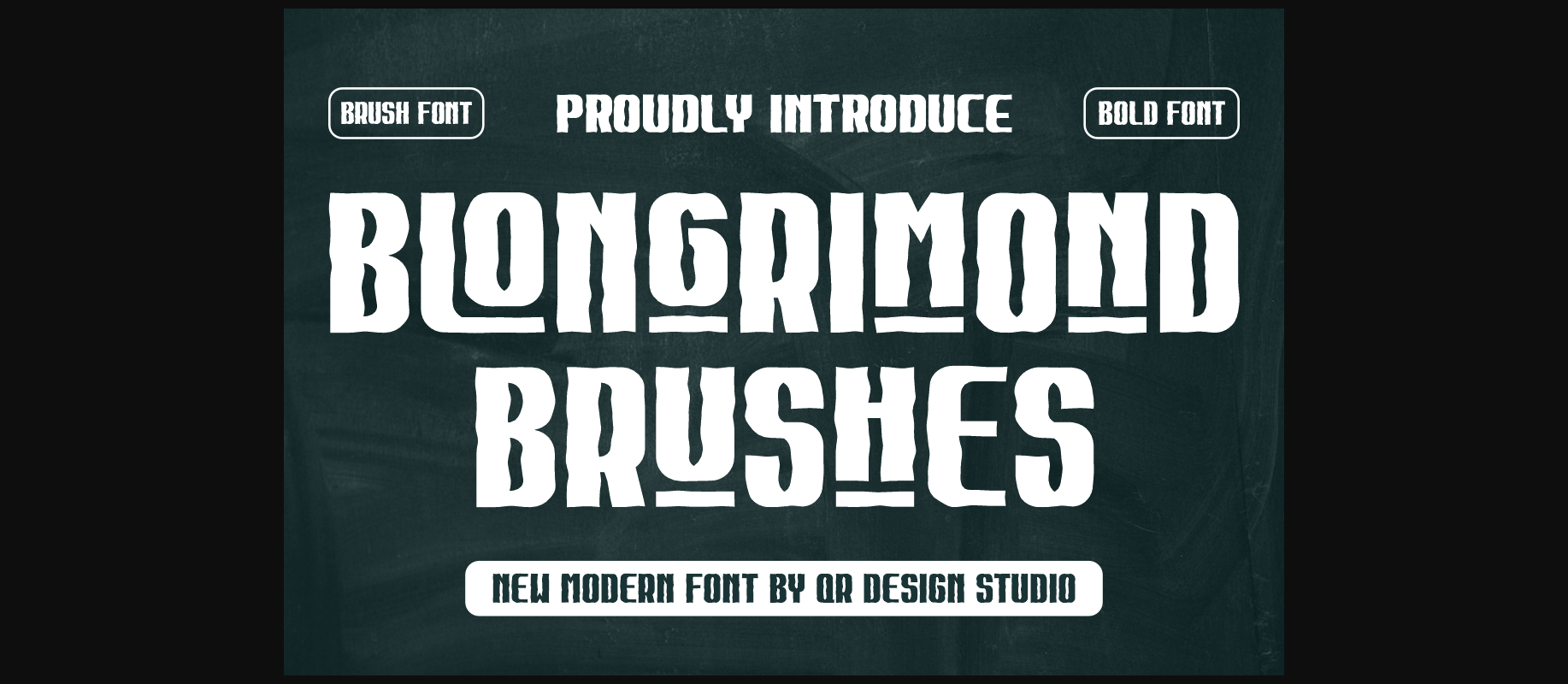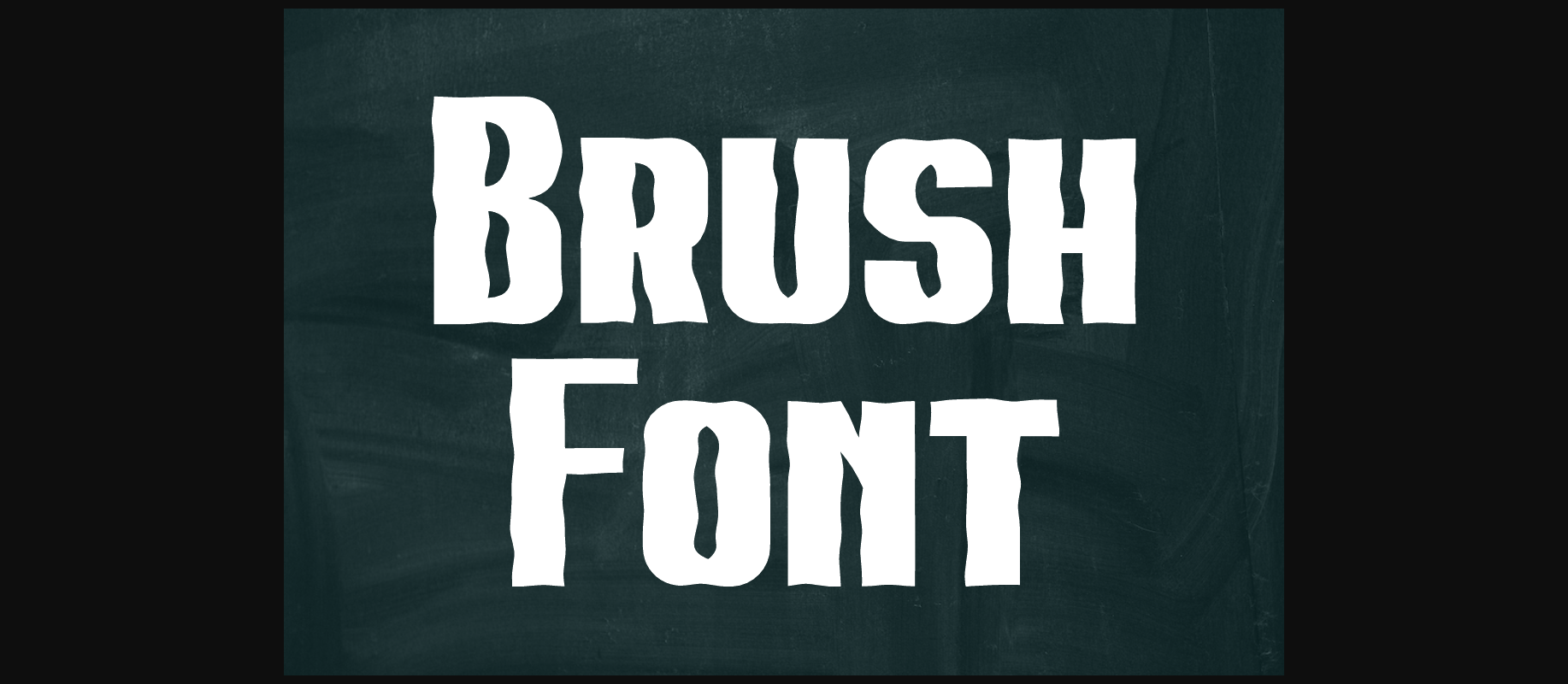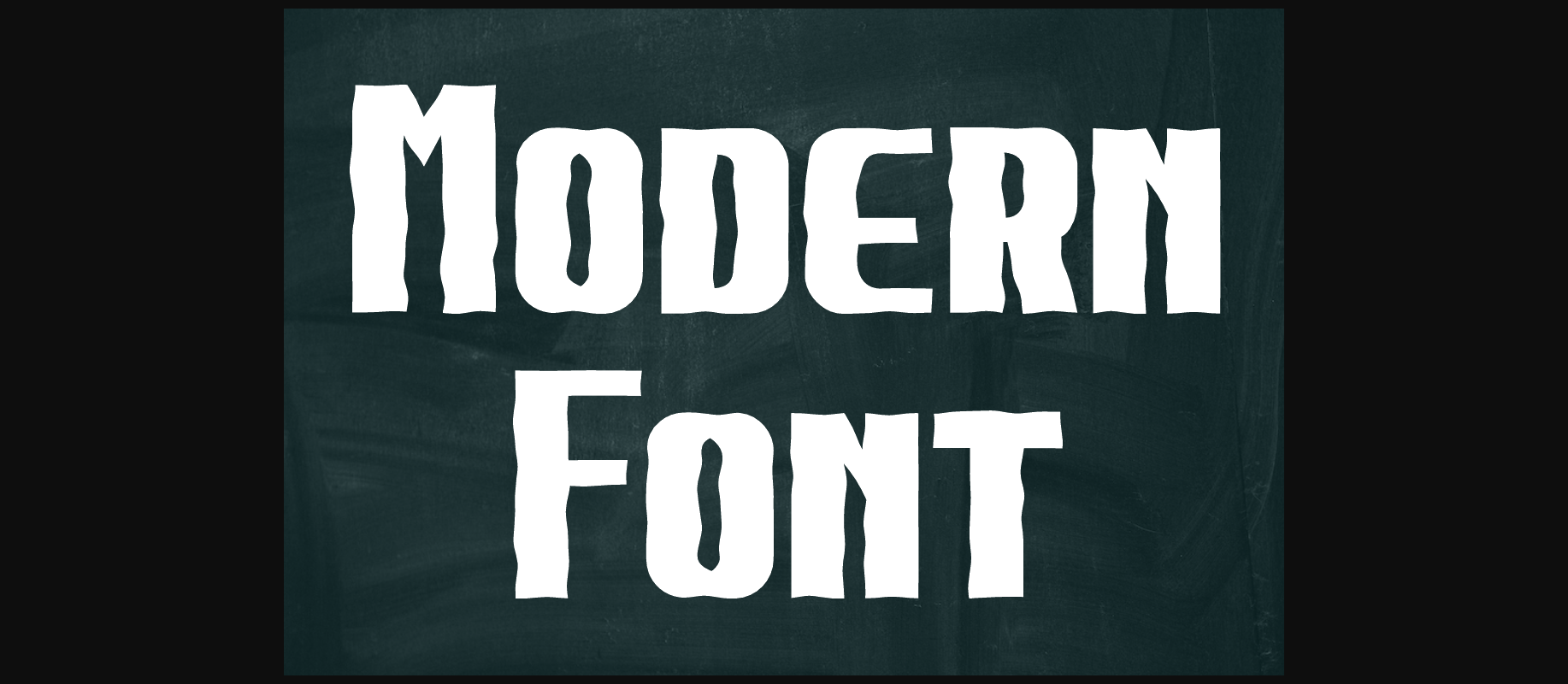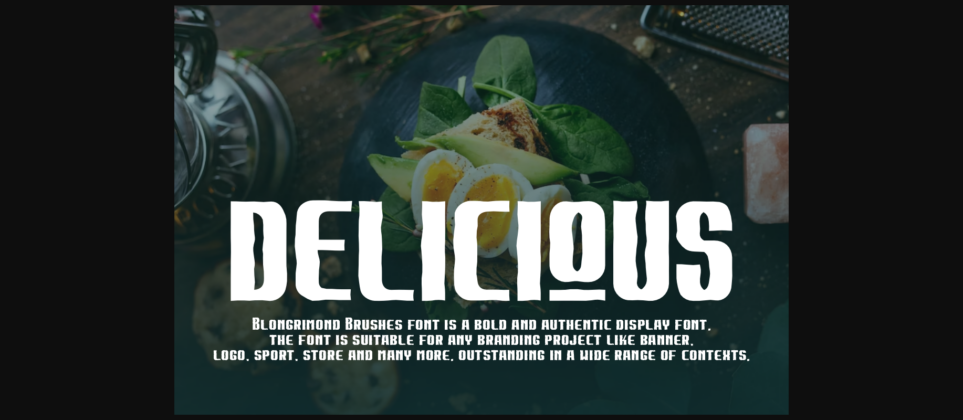
About Blongrimond Brushes Font
Blongrimond Brushes Font is a bold and authentic display font.
The font is suitable for any branding project like logo, food, and many more.